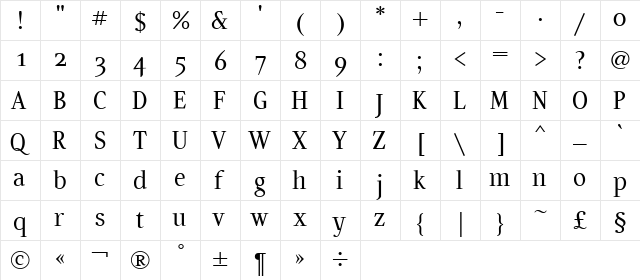
Artemius SN Regular
| Foundry | Letterhead studio especially for ArtLebedev Group. Created by Yuri Gordon |
Artemius SN offers clean, dependable letterforms without strong stylistic allegiance, making it a practical choice for designers who need flexibility.